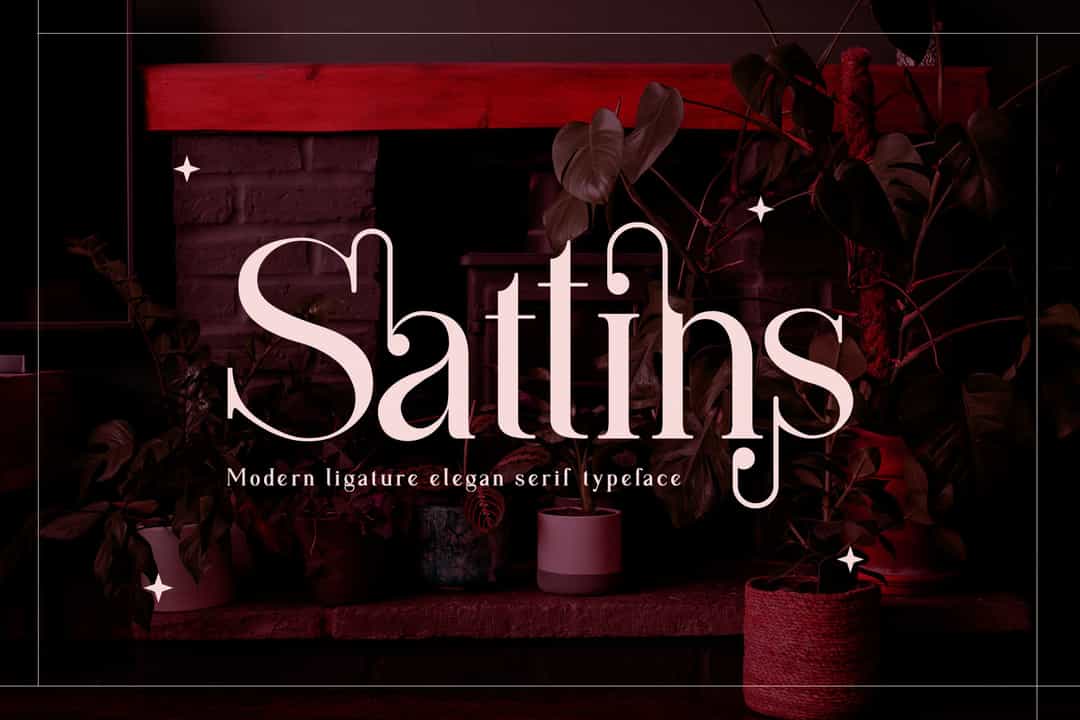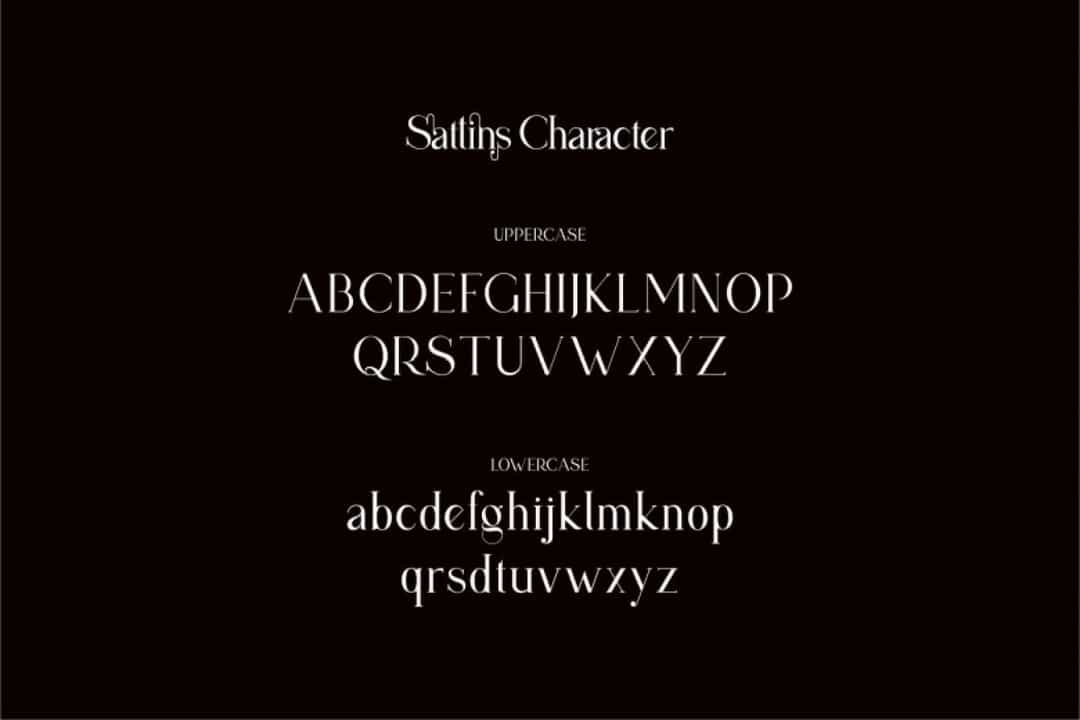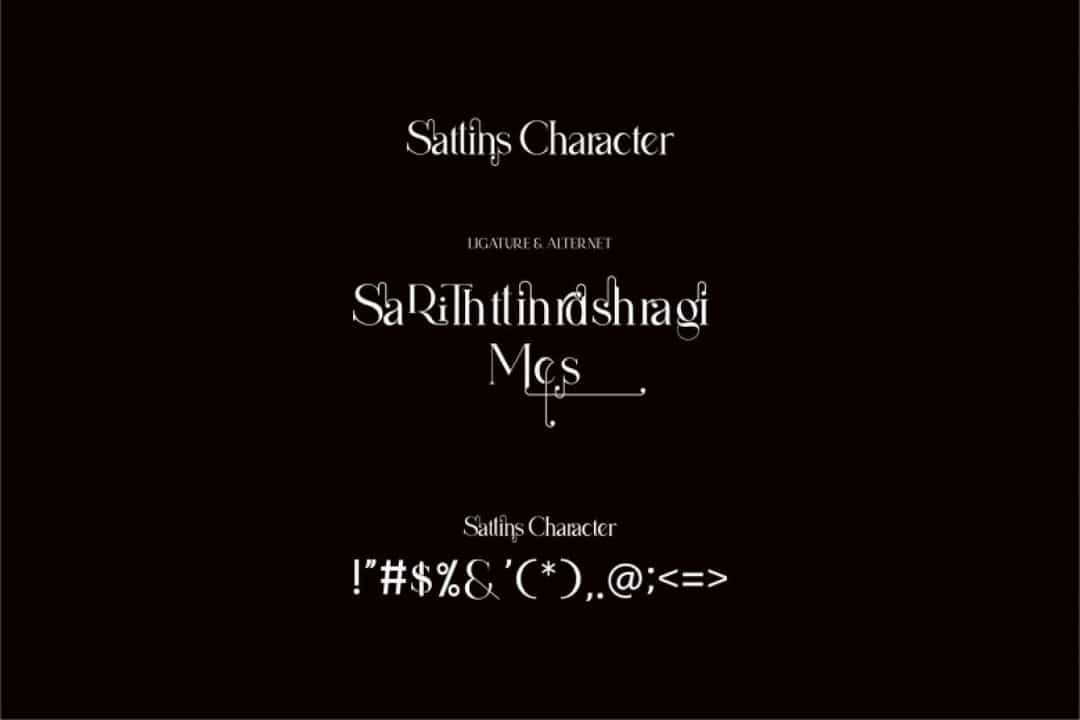
Sattins Font is an elegant and distinct serif font. Created to become one of the world’s favorite fonts, Sattins Font can help elevate all your ideas!